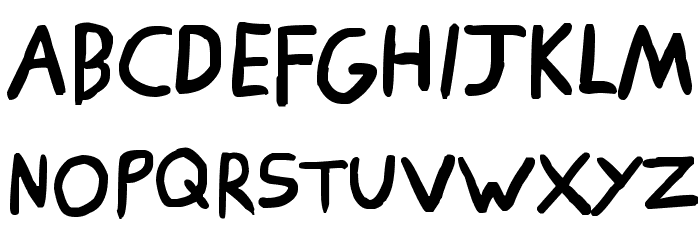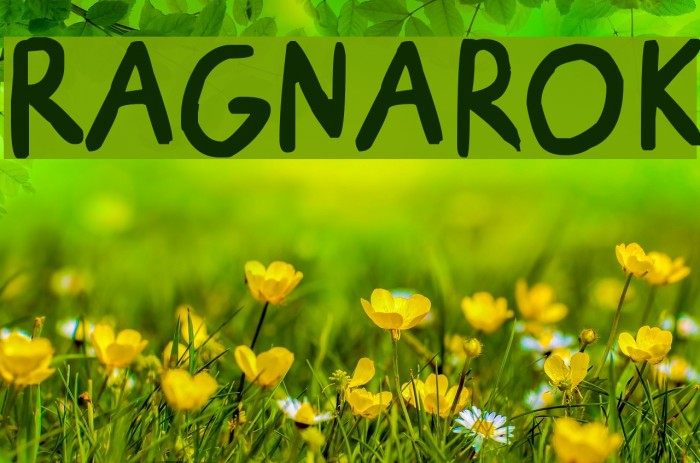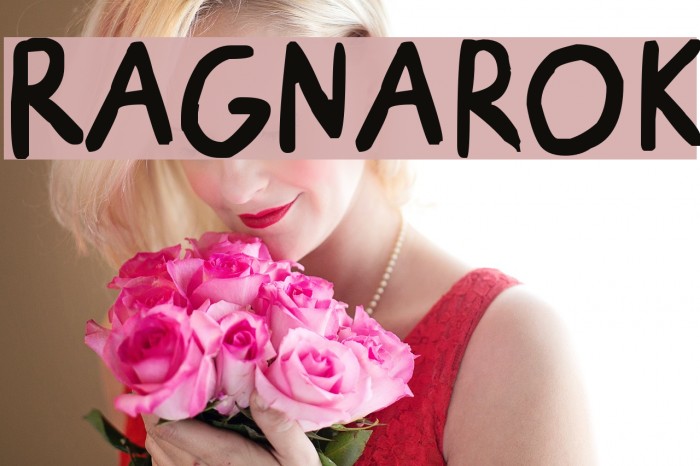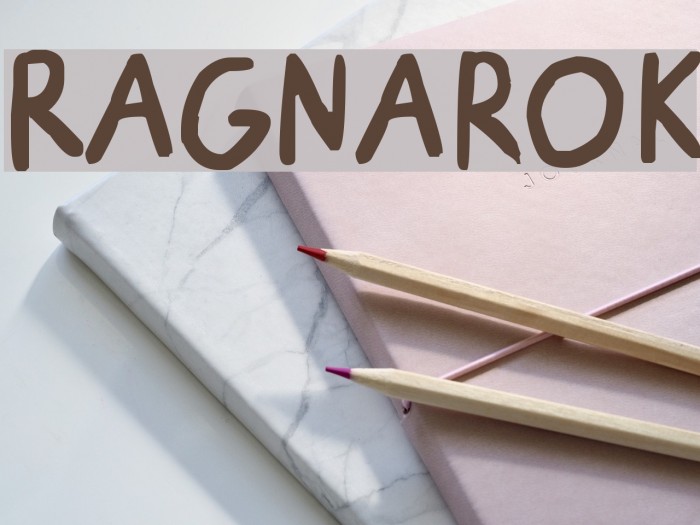
Ragnarok Font
This font features a bold, handwritten style with a playful and casual appearance. The characters are slightly irregular, adding a personal touch that mimics natural handwriting. The strokes are thick and consistent, providing a strong visual impact. The font maintains a uniform weight throughout, with rounded edges that soften its overall look. It includes a full set of uppercase and lowercase letters, numbers, and a variety of special characters, making it versatile for different uses. The spacing between characters is relatively tight, enhancing its compact and cohesive feel.
A bold, handwritten font with a playful and casual style.
- Proposed Projects: Ideal for greeting cards, children's books, casual branding, and social media graphics.
- Character Spacing: Tight
- Overall Style: Casual
- Use Case: Logos, Headlines, Informal Text